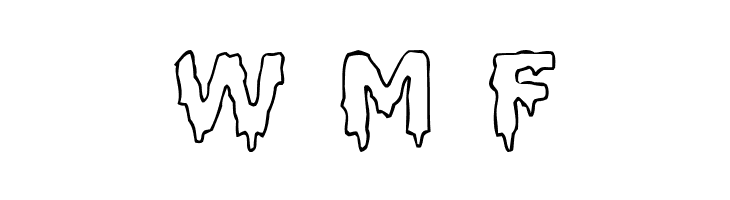
Liquidism Font
A bold, dripping liquid effect font ideal for playful or eerie designs.
A bold, distressed font with a rugged, grunge-like appearance.
MassiveHeadache3 Font
A bold, playful font with chunky, hand-drawn letterforms.
Gasoline Font
A bold, hand-drawn style font with a rugged, organic appearance.